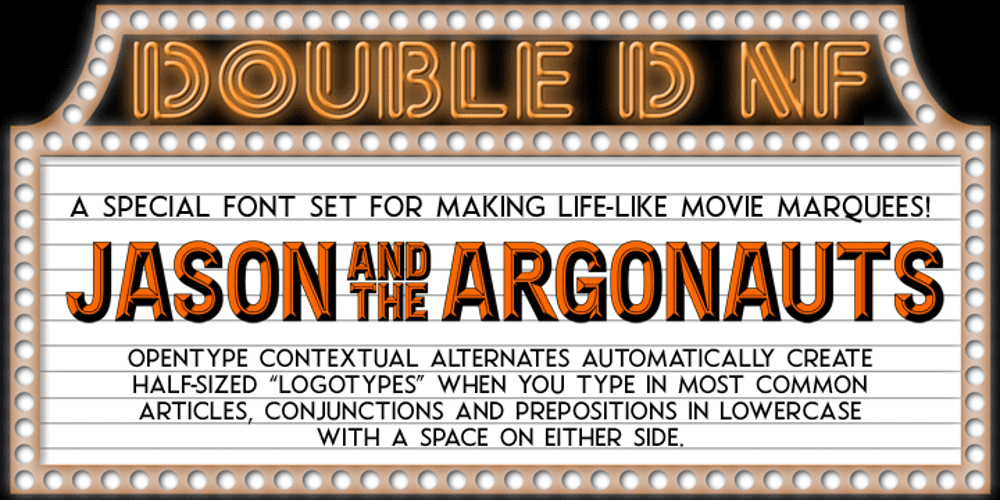
Double D NF
Double D NF font
Double D NF Font Family was designed by Nick Curtis, Dave Davison and published by Nick’s Fonts. Double D NF contains 4 styles and family package options. This movie-theater typeface draws its inspiration from Dave Davison’s eponymous Dimensional from the 1970s, and includes two versions, Fill and Outline, for one low price. What makes this version unique is, with Contextual Alternates enabled, when you type in most common articles, conjunctions and prepositions in lowercase, they will be automatically transformed into the half-size “logotypes” commonly seen on movie marquees. Both versions of these fonts include the complete Latin 1252 and Central European 1250 character sets, with localization for Moldovan and Romanian.